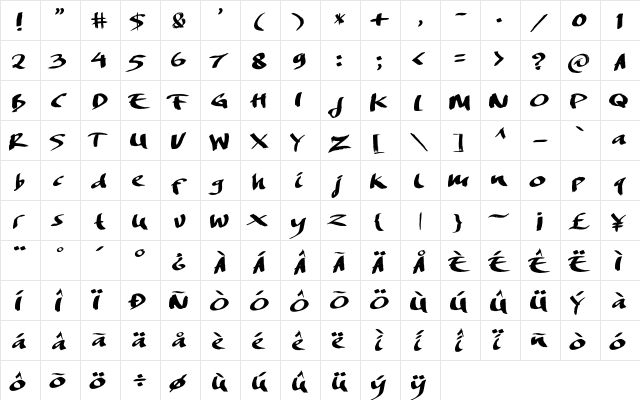
DREAMERS BRUSH Regular
Design Context for DREAMERS BRUSH Typeface
DREAMERS BRUSH flows with the natural rhythm of handwritten lettering, making it ideal for designs that call for warmth and personal expression.
Font Pairing: Combine DREAMERS BRUSH with a simple geometric sans for maximum contrast — the tension between flowing curves and clean structure is a classic typographic pairing.
Pro Tip: Pair DREAMERS BRUSH with a clean sans-serif for supporting text. The contrast between fluid script and geometric structure creates an elegant typographic hierarchy.